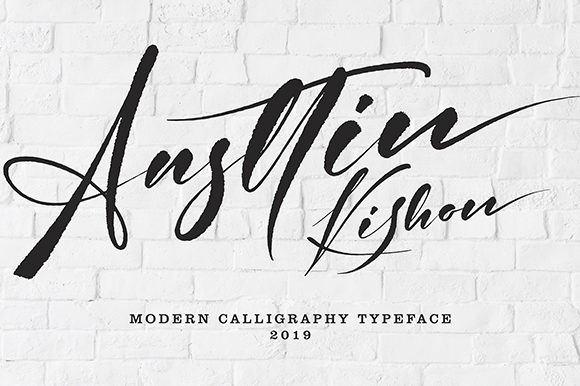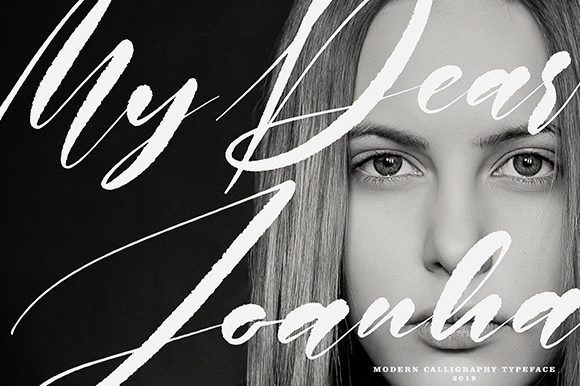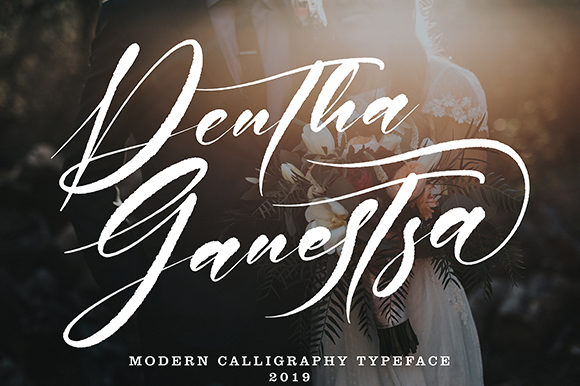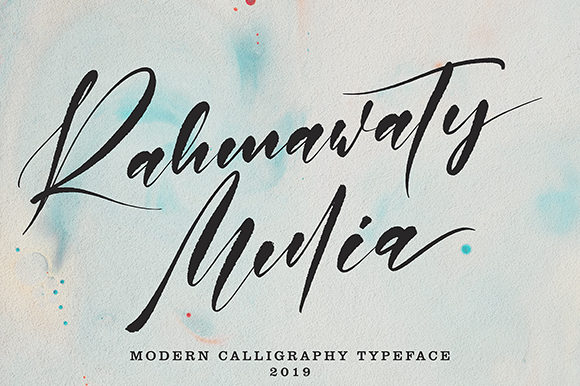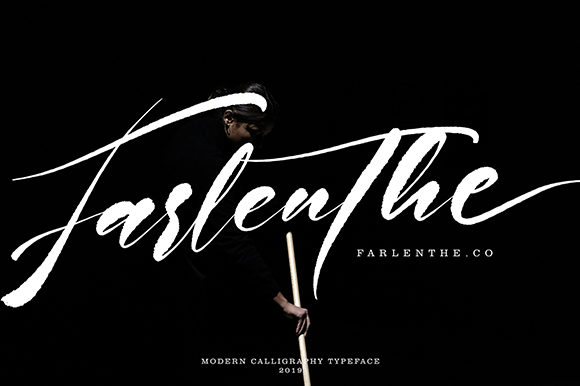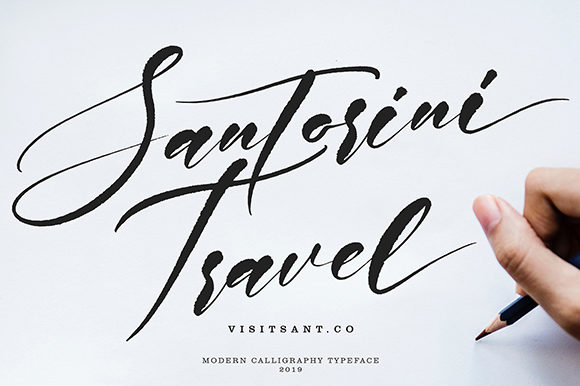
HomeScript FontsAnsttin Kishon Font Script Fonts Ansttin Kishon Font FacebookXPinterestWhatsApp Ansttin Kishon Font Poster 2 Ansttin Kishon Font Poster 3 Ansttin Kishon Font Poster 4 Ansttin Kishon Font Poster 5 Ansttin Kishon Font Poster 6 About Ansttin Kishon Font Ansttin Kishon is a fun and light script font with an authentic twist. get inspired by its playful swashes! DOWNLOAD NOW People also explored Almonds Font Goodtime Font Inspiration Font Butterfly Font Miskola Font Aviano Slab Romano Font Nouveau Never Dies Font Sandtose Font 421 0 TagsAnsttin Kishon Font Previous articleBelittong FontNext articleTefang Island Font LEAVE A REPLY Cancel reply Comment: Please enter your comment! Name:* Please enter your name here Email:* You have entered an incorrect email address! Please enter your email address here Website: Save my name, email, and website in this browser for the next time I comment. Personal Use Free BD TinyFont Personal Use Free Read more about this font 08 Underground Personal Use Free Read more about this font Hashira Mt Personal Use Free Read more about this font December Christmas Personal Use Free Read more about this font BLOG Top 10 Handwritten Fonts That Elevate Your Designs Top 10 Handwritten Fonts That Will Elevate Your Designs Handwritten fonts bring a warm, personal touch to every creative project. Whether you're designing logos, invitations,... Transform Your Website: Elevate Your Typography with 7 Best Web Font Generators Elegant Wedding Invitation Fonts – Handwritten & Script Fonts How to Install and Use Fonts on Windows, macOS, and Web Projects